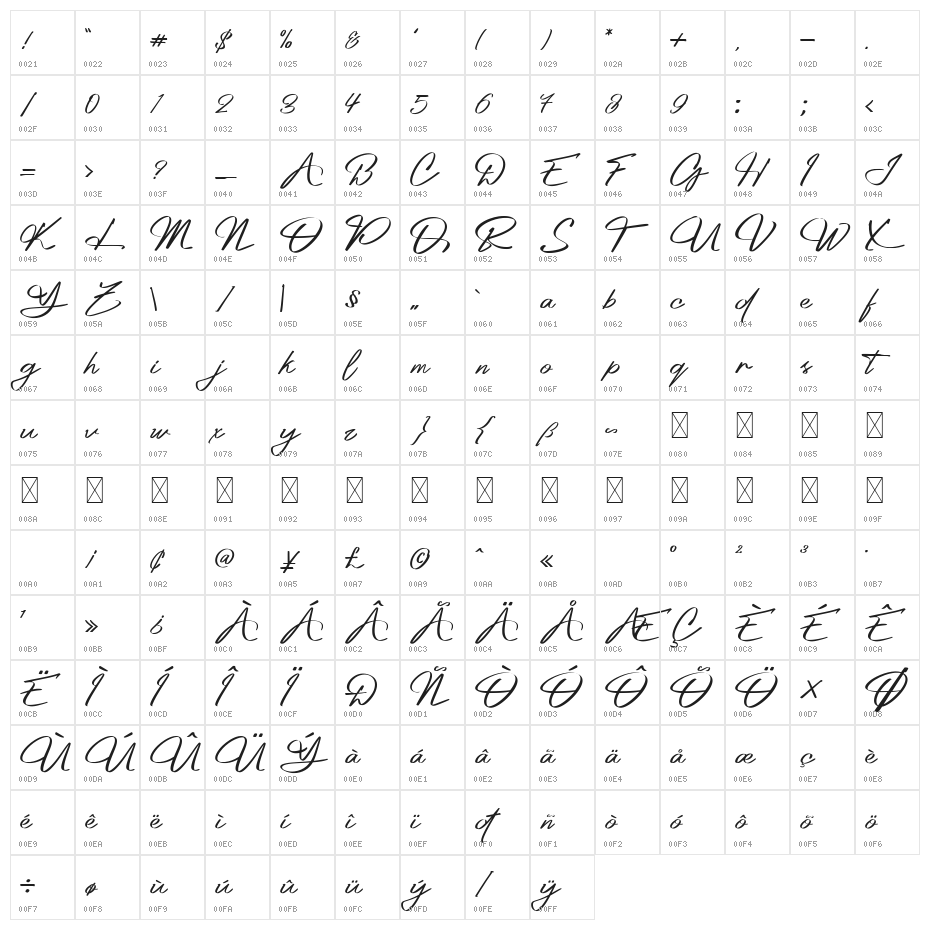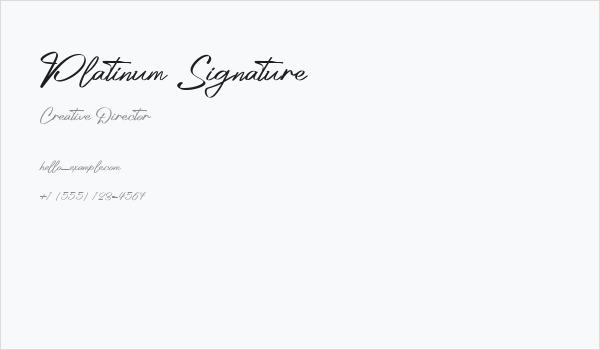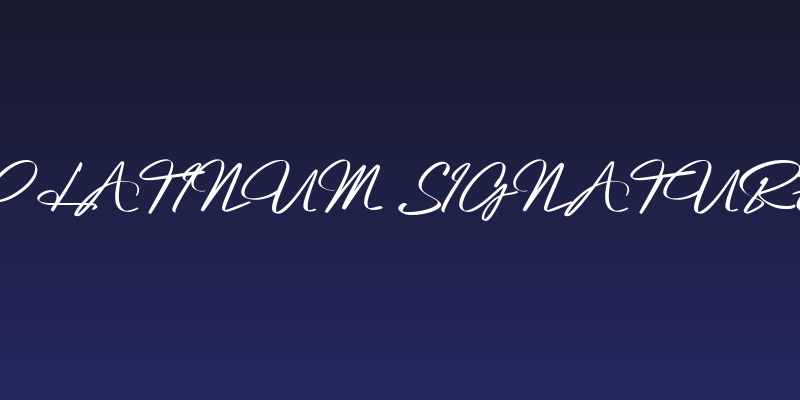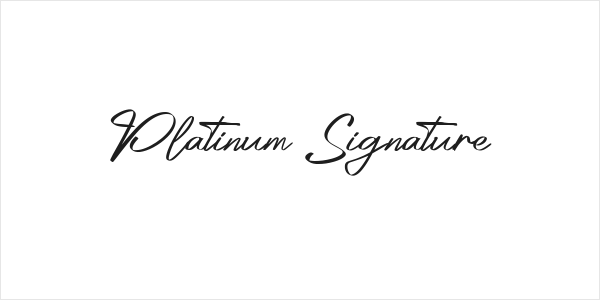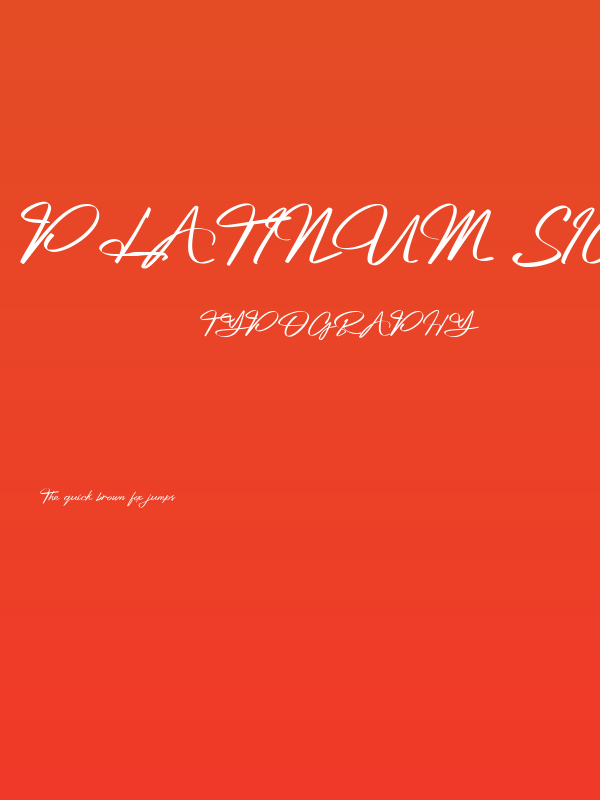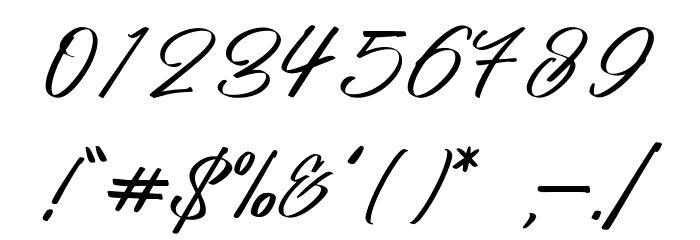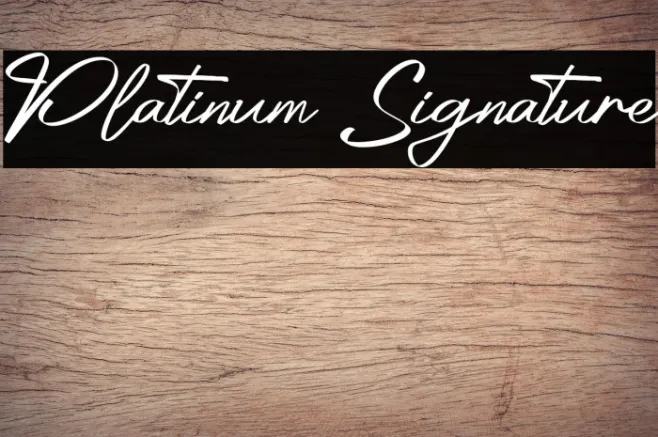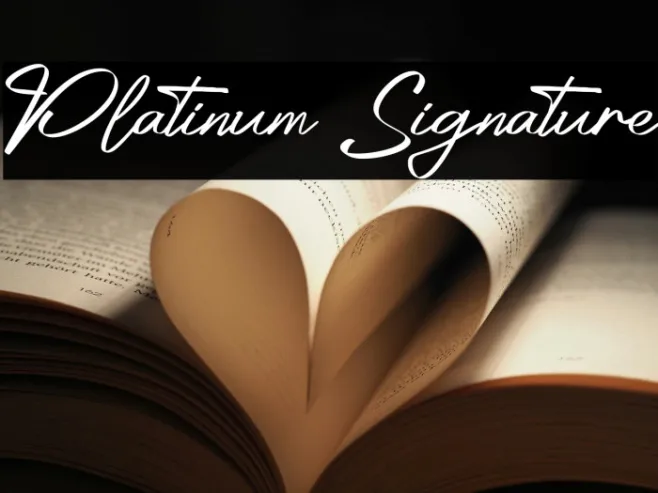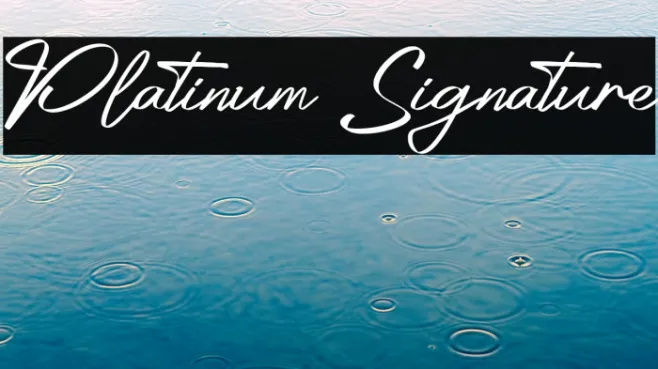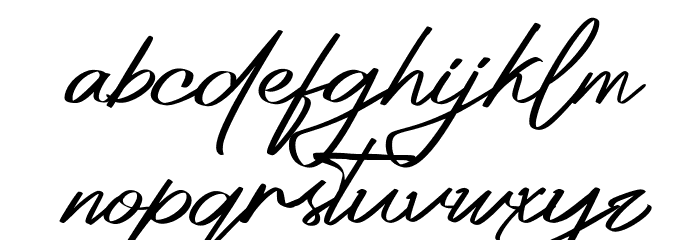
Platinum Signature Font
Platinum Signature Description
This elegant script font exudes a sense of sophistication and fluidity, characterized by its flowing, cursive letterforms. The strokes are smooth and connected, giving it a handwritten appearance that is both graceful and stylish. The uppercase letters are slightly more elaborate, with sweeping curves and loops, while the lowercase letters maintain a consistent flow. The numerals and special characters are designed to complement the overall aesthetic, ensuring a cohesive look. This font is perfect for projects that require a touch of elegance and personal flair.
| Use Case | Logos, Invitations, Personal stationery |
| Proposed Projects | Ideal for wedding invitations, elegant branding, personal stationery, and signature logos. |